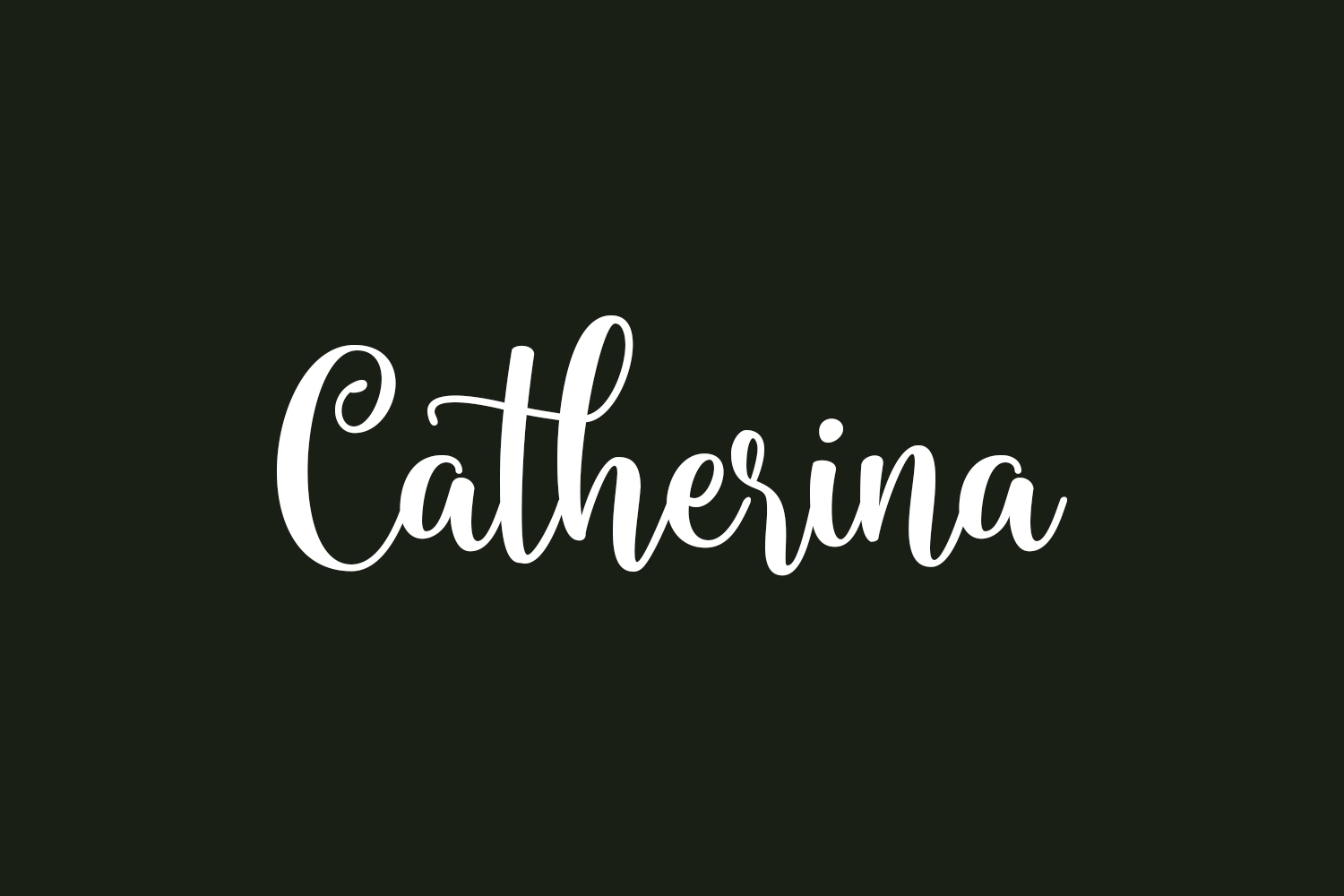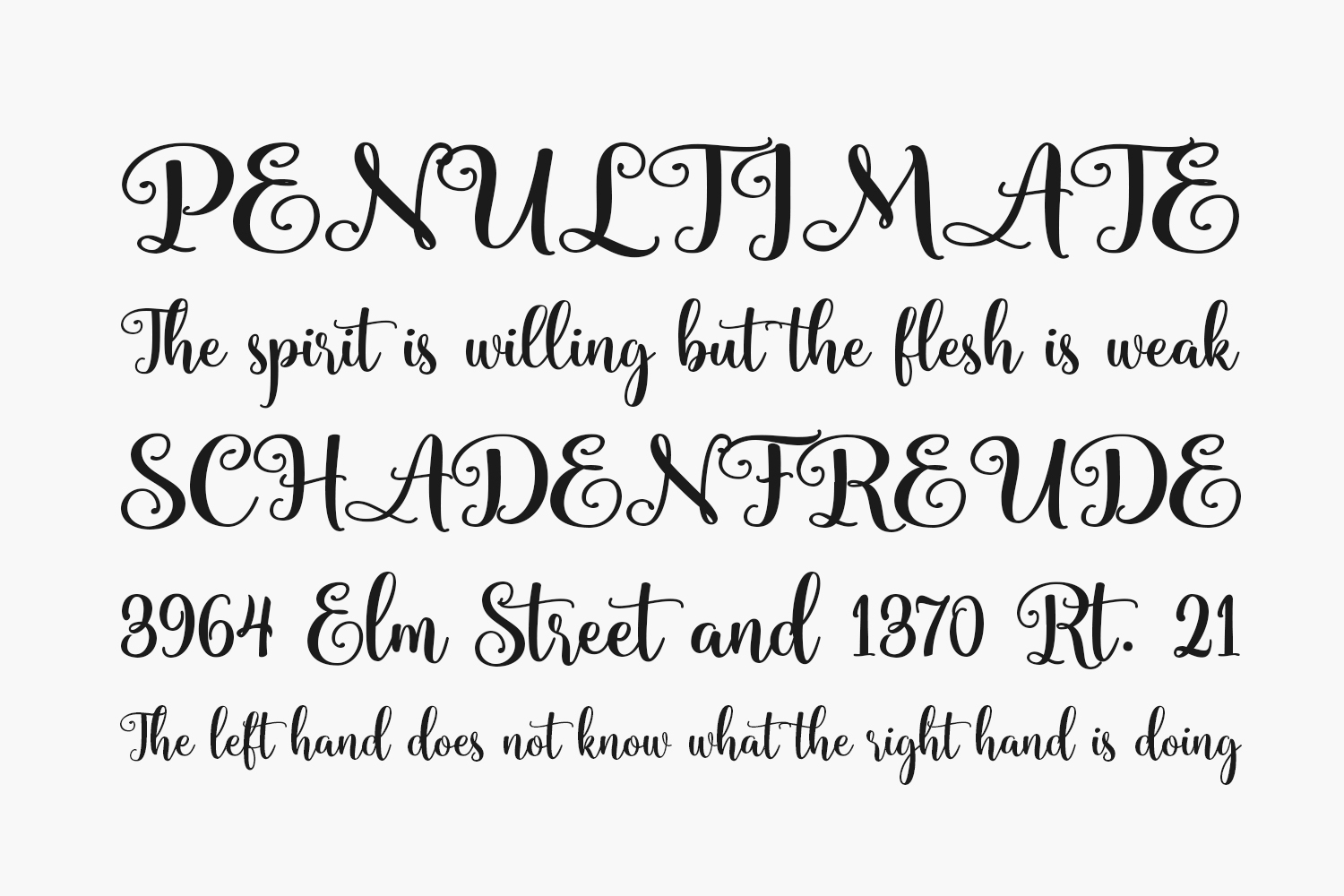
Catherina Free Font, a gentle and charming calligraphy script font, is ideal for a myriad of projects, including contemporary invitation designs, branding, stationery, blog layouts, modern advertising, card invitations, artistic quotes, home decor, book or cover titles, and special events like weddings and birthdays. Elevate your designs with this versatile font crafted for all your handpainted calligraphy requirements. Catherina Free Font was designed by Letternun and is free for personal use only. Please purchase the full version for commercial use.